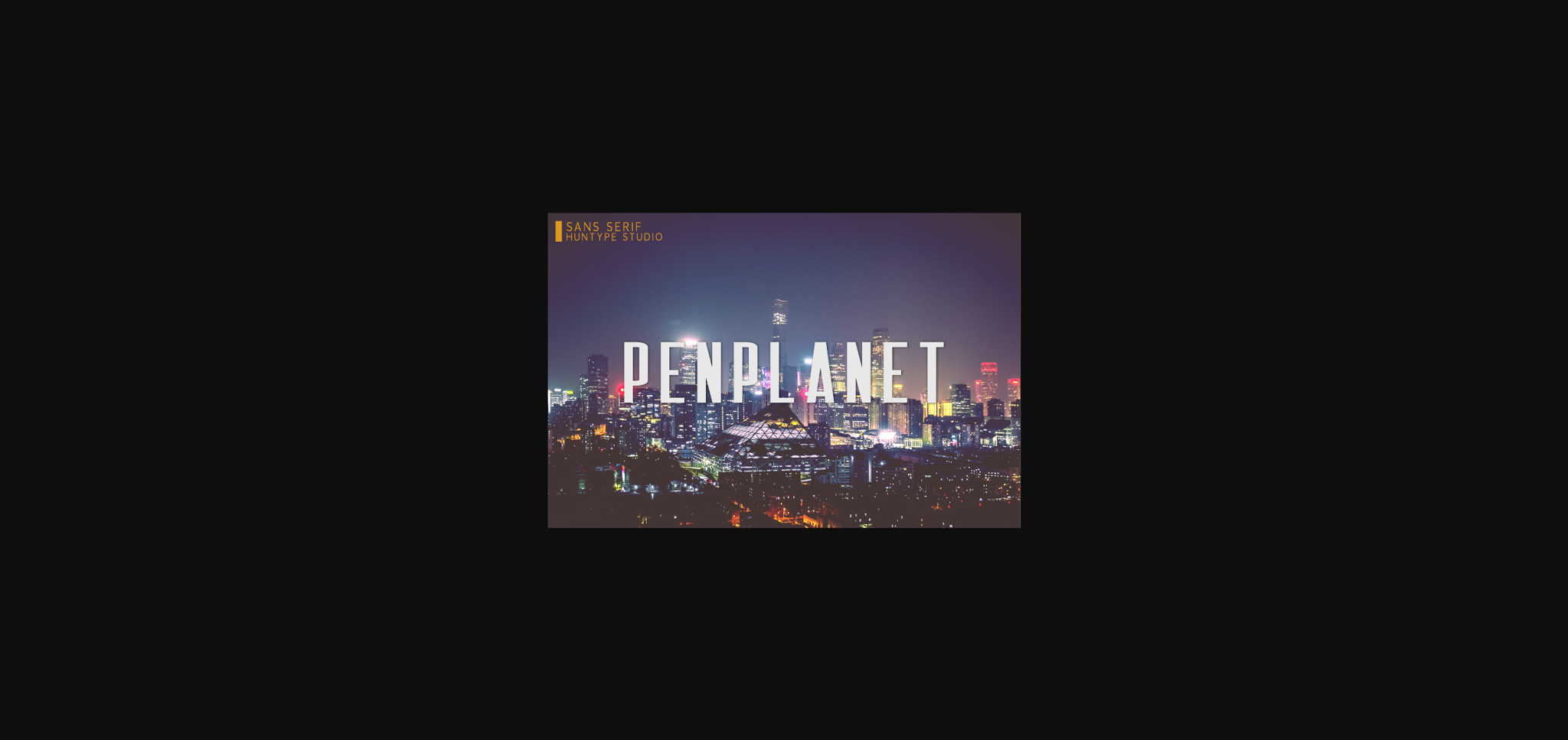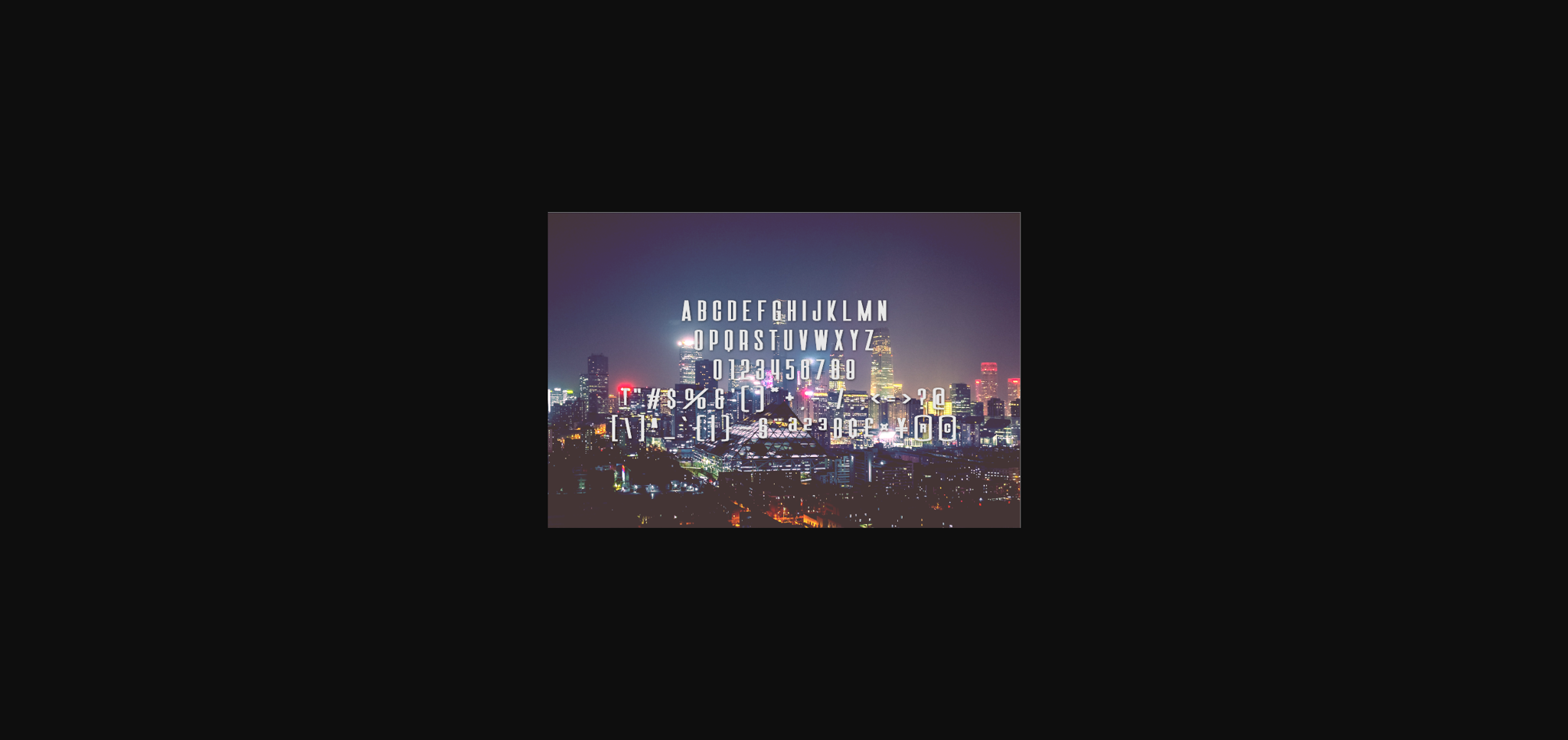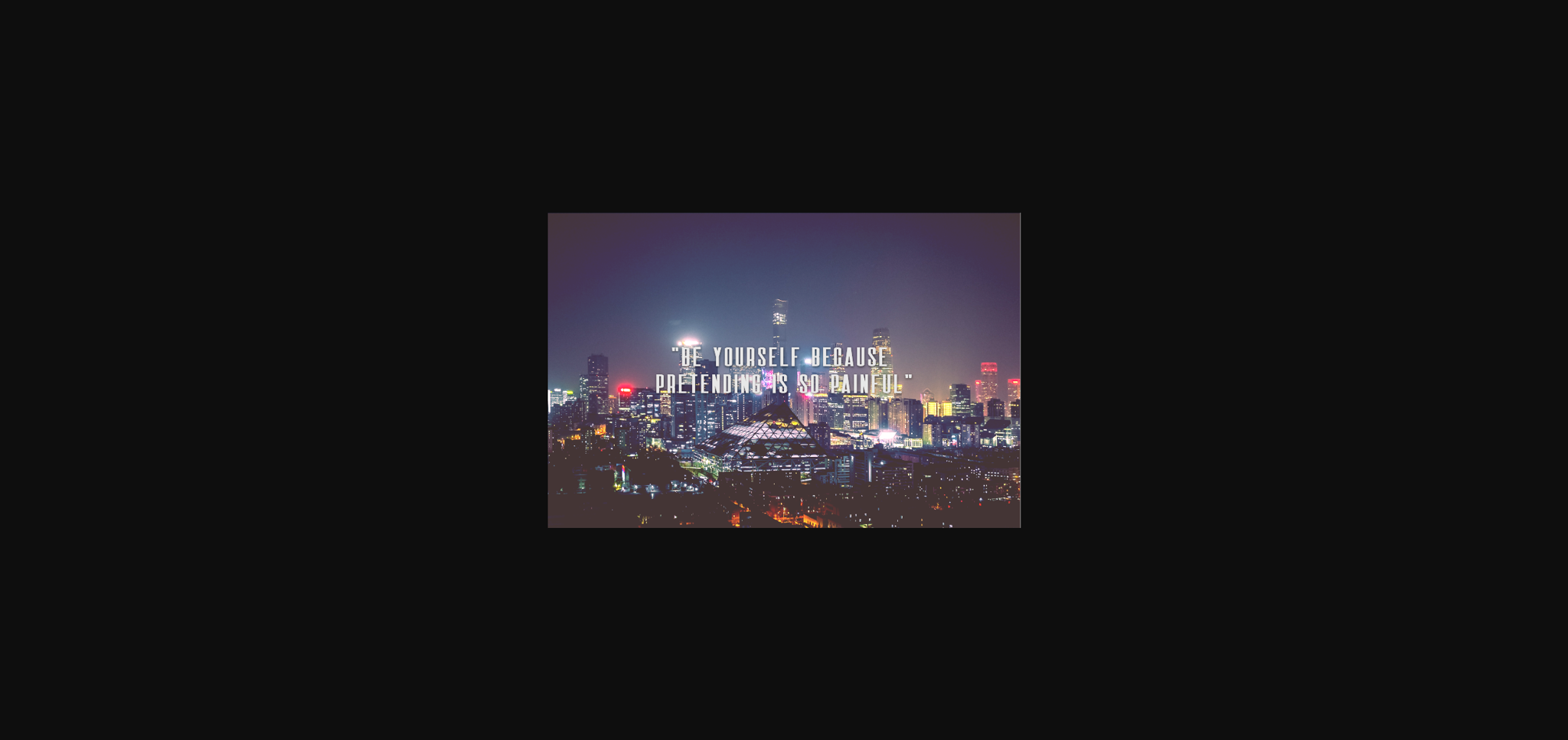
About Penplanet Font
Penplanet is a modern and clean sans serif font that is versatile and looks great in just about any context. With smooth and clean lines, and just a touch of contrast, Penplanet works beautifully for logos, branding, web headings and much more.